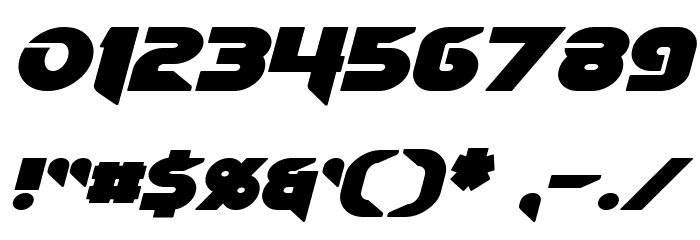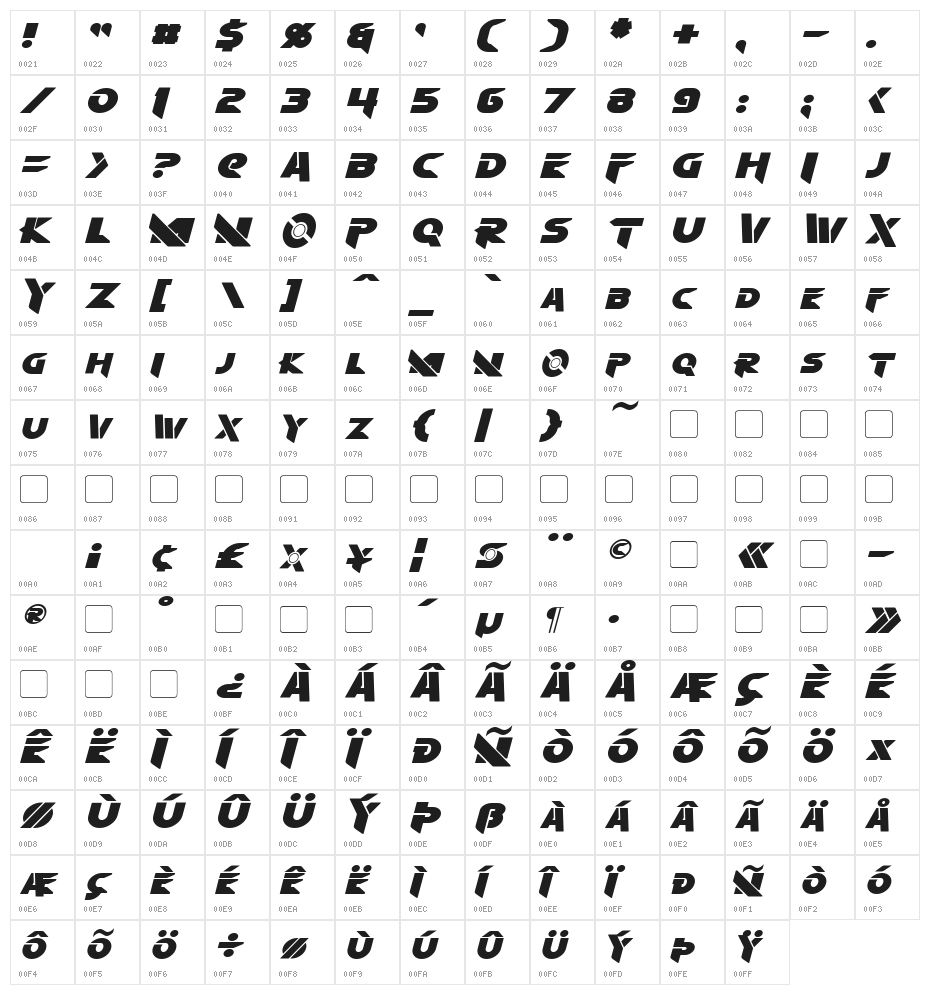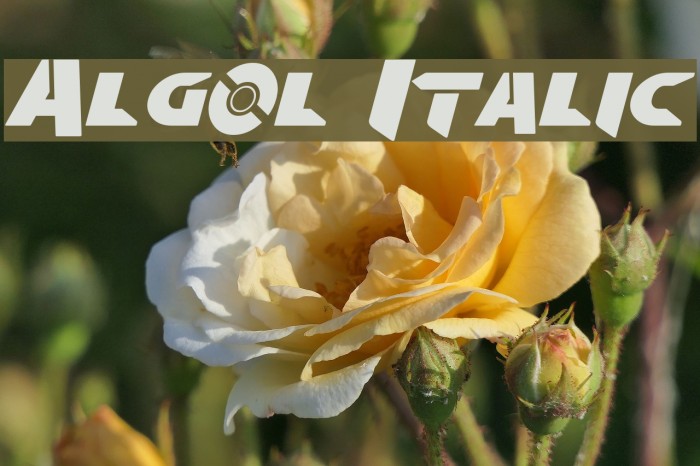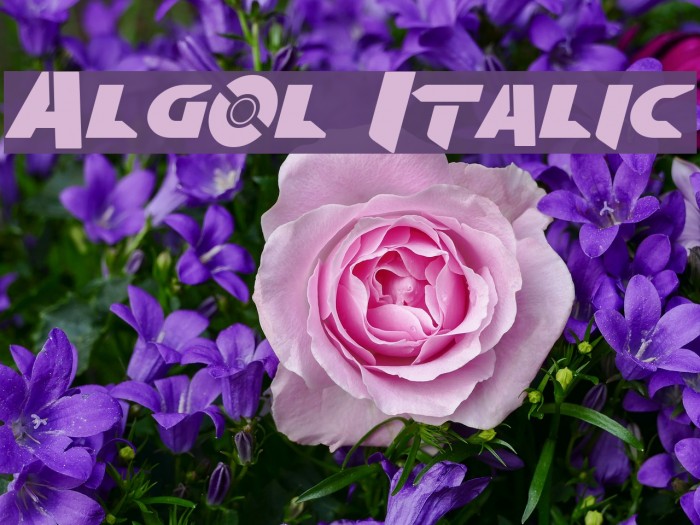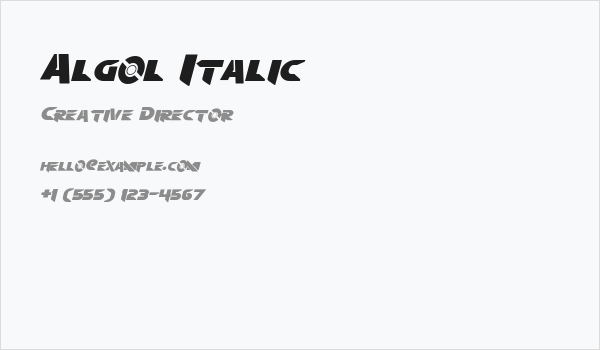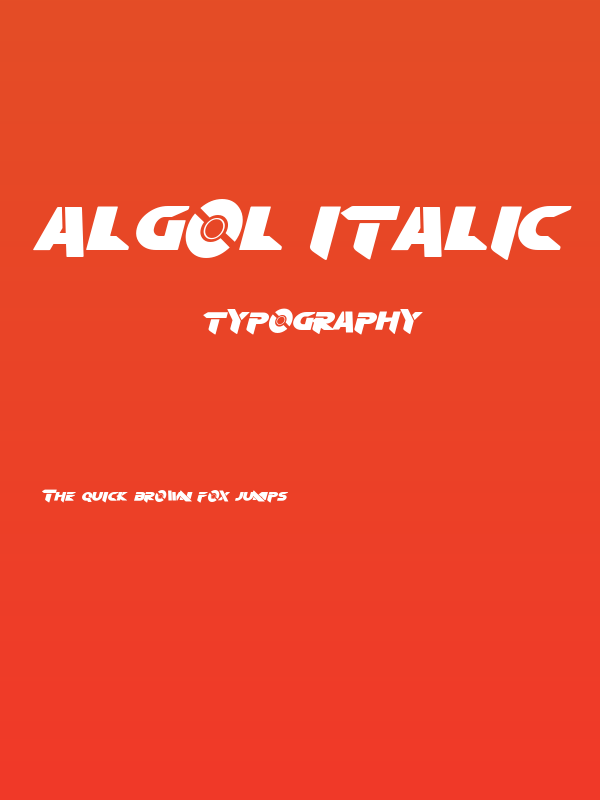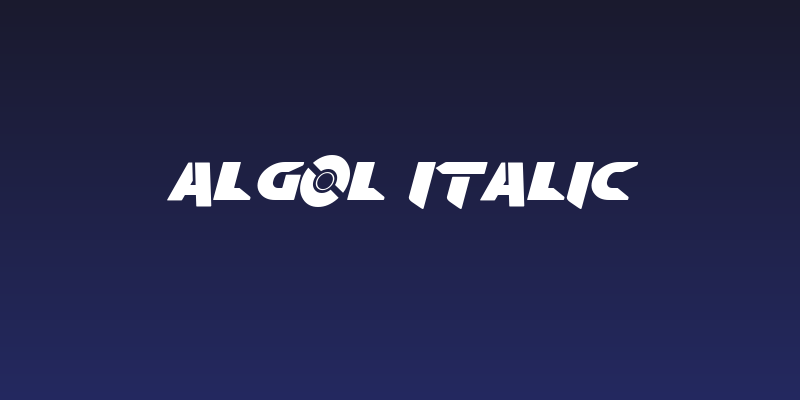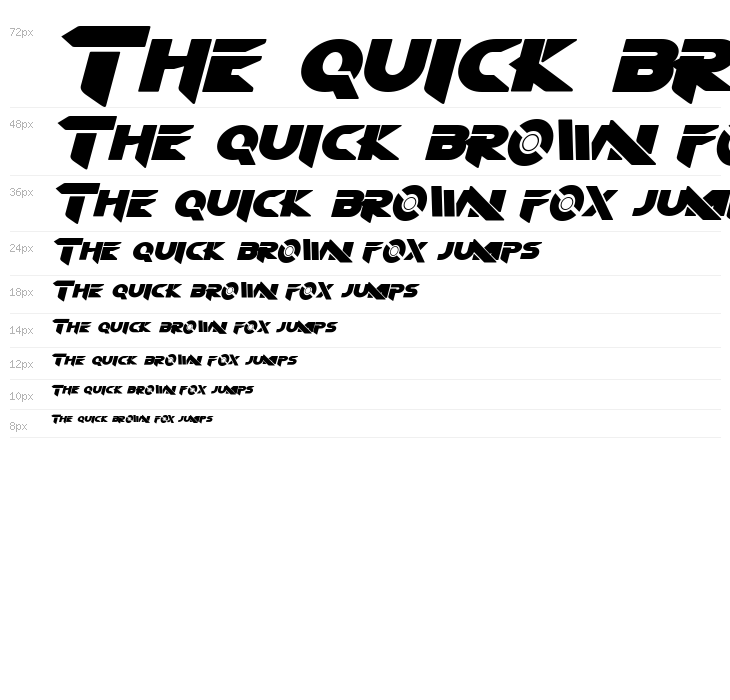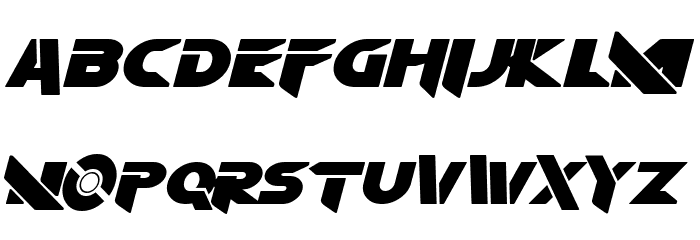
Algol Italic Font
Algol Italic Description
This font features a bold and dynamic style with a futuristic and geometric design. The characters are sharply angled, giving them a sense of motion and energy. The uppercase letters are particularly striking, with unique cutouts and angular shapes that create a sense of depth and dimension. The lowercase letters maintain the same angular style, ensuring consistency across the typeface. Numbers and special characters are equally bold, with distinctive shapes that complement the overall aesthetic. This font is ideal for projects that require a modern and edgy look.
| Overall Style | Futuristic, Modern |
| Proposed Projects | Ideal for sci-fi themed projects, video game titles, tech branding, and modern posters. |